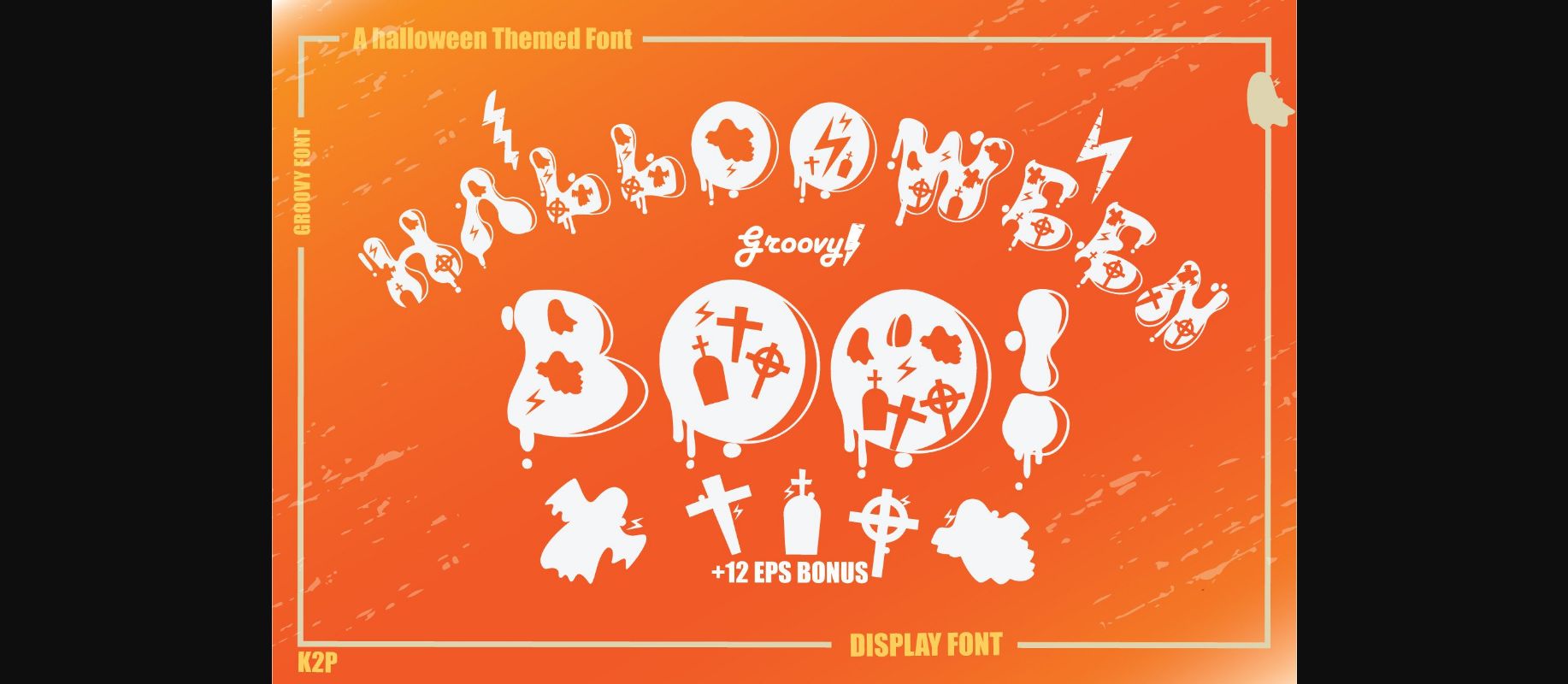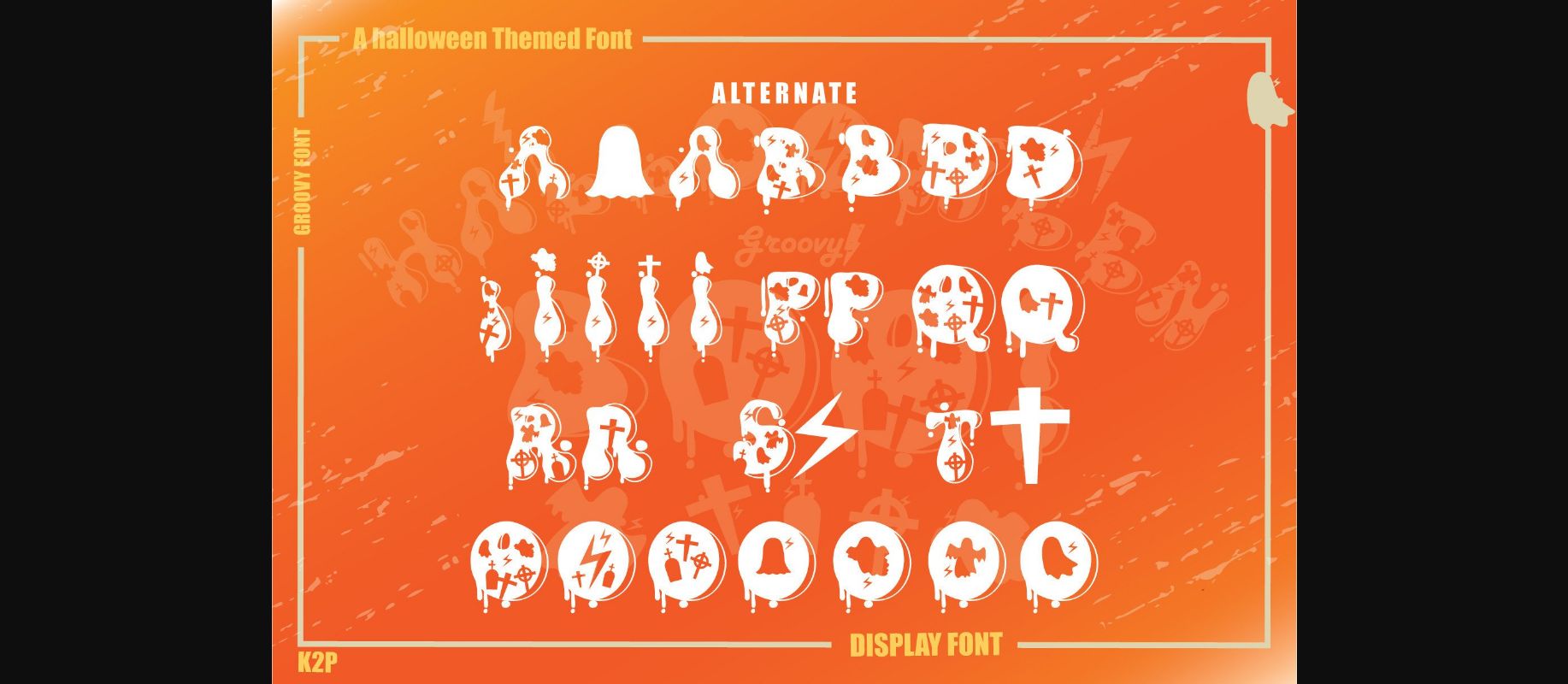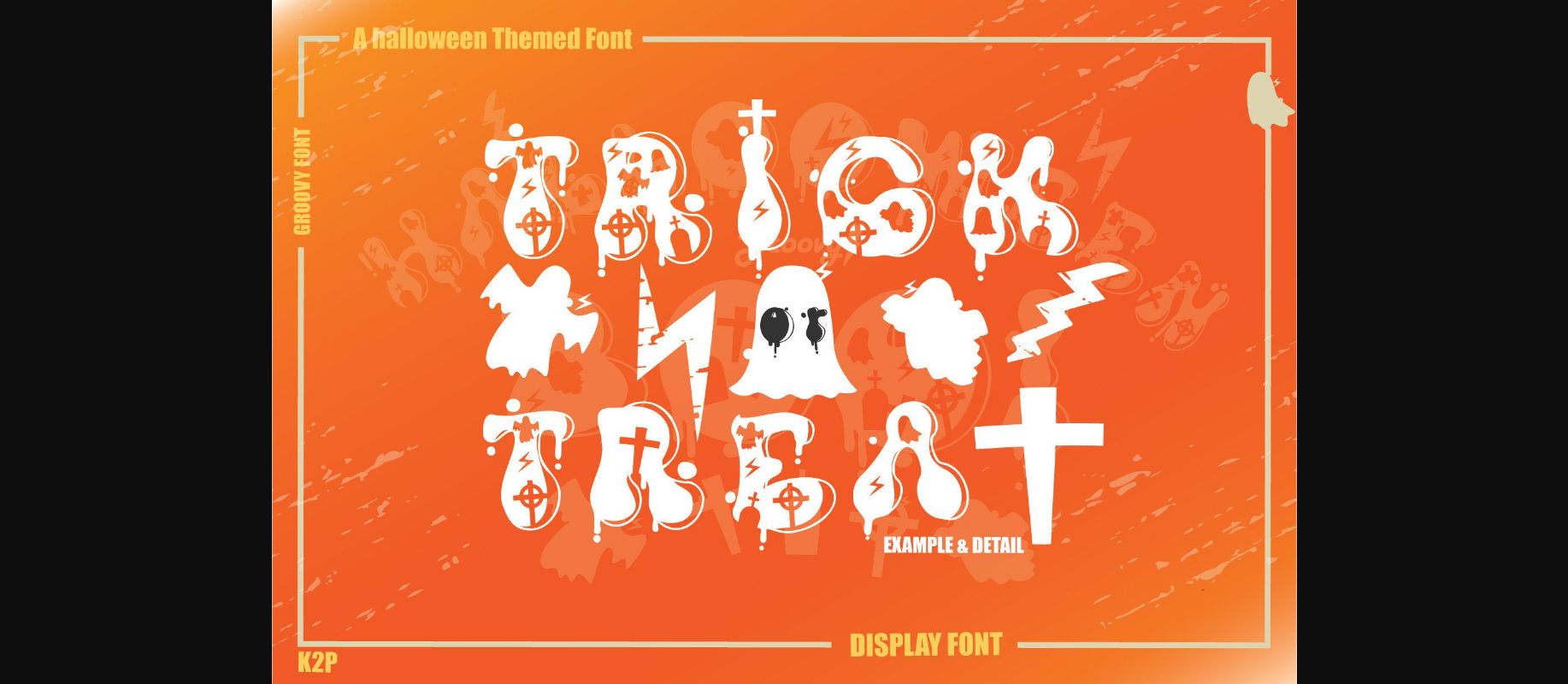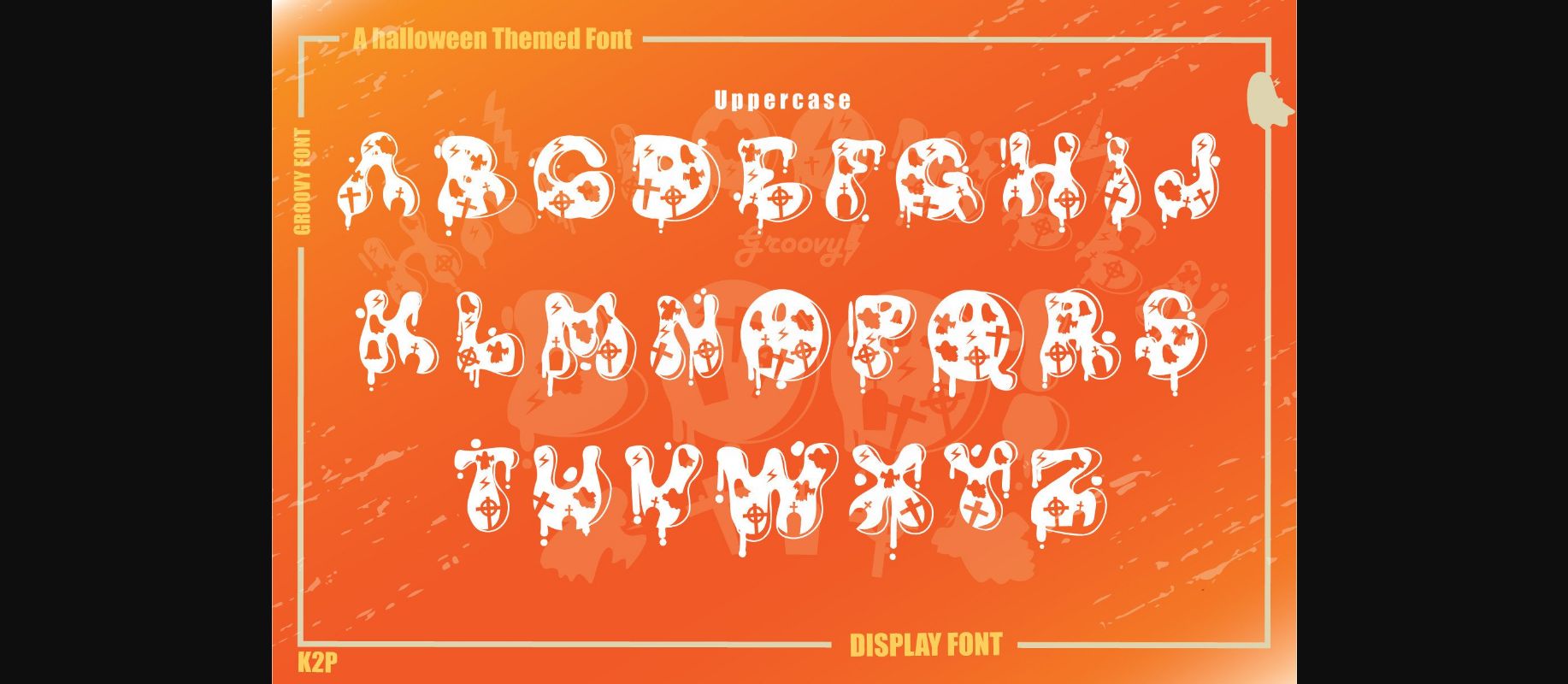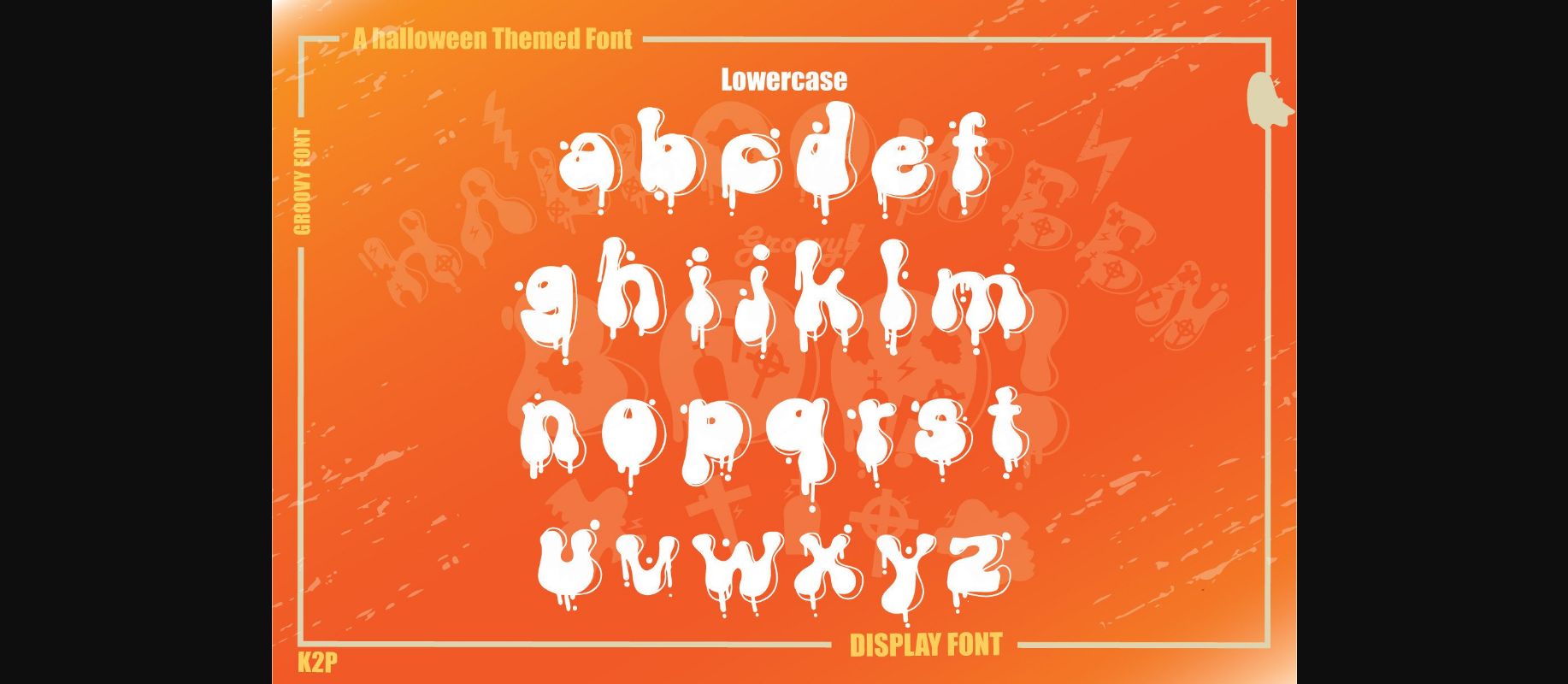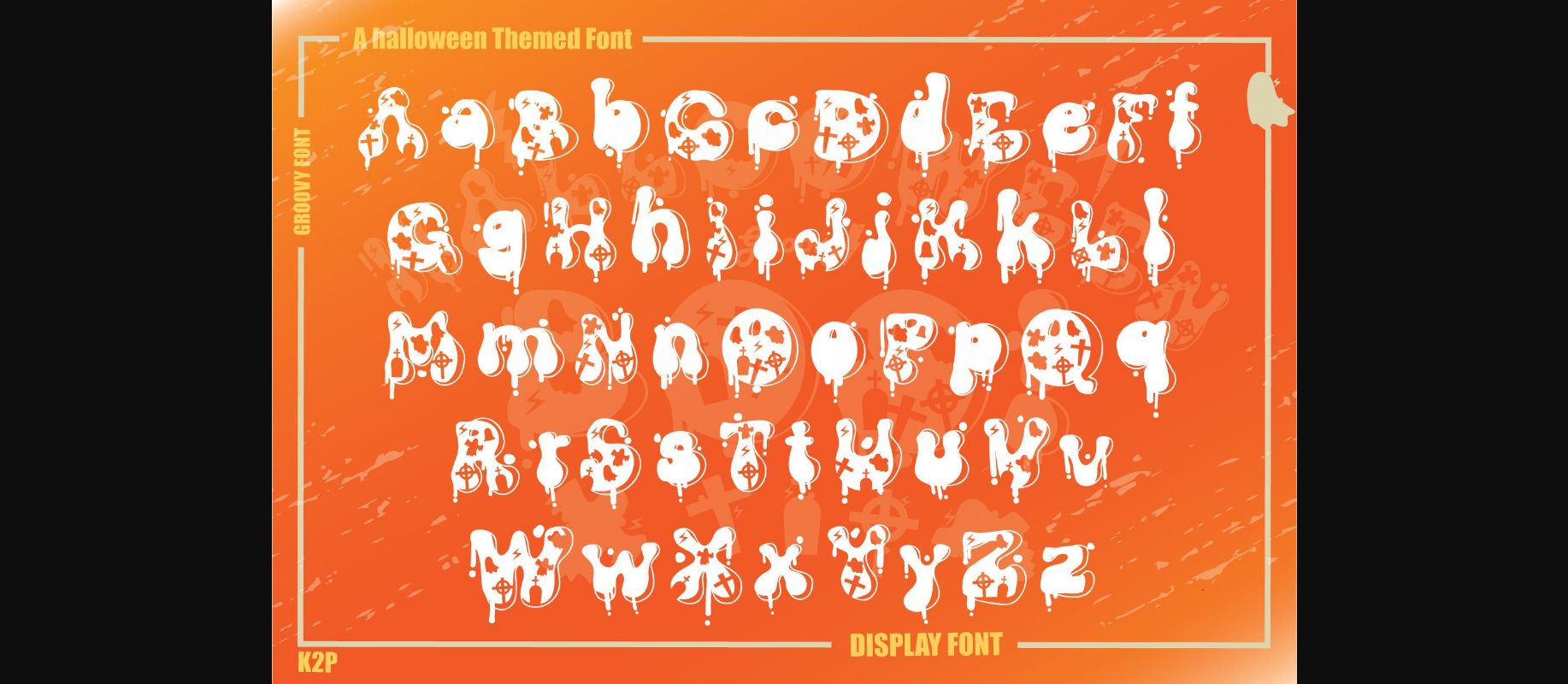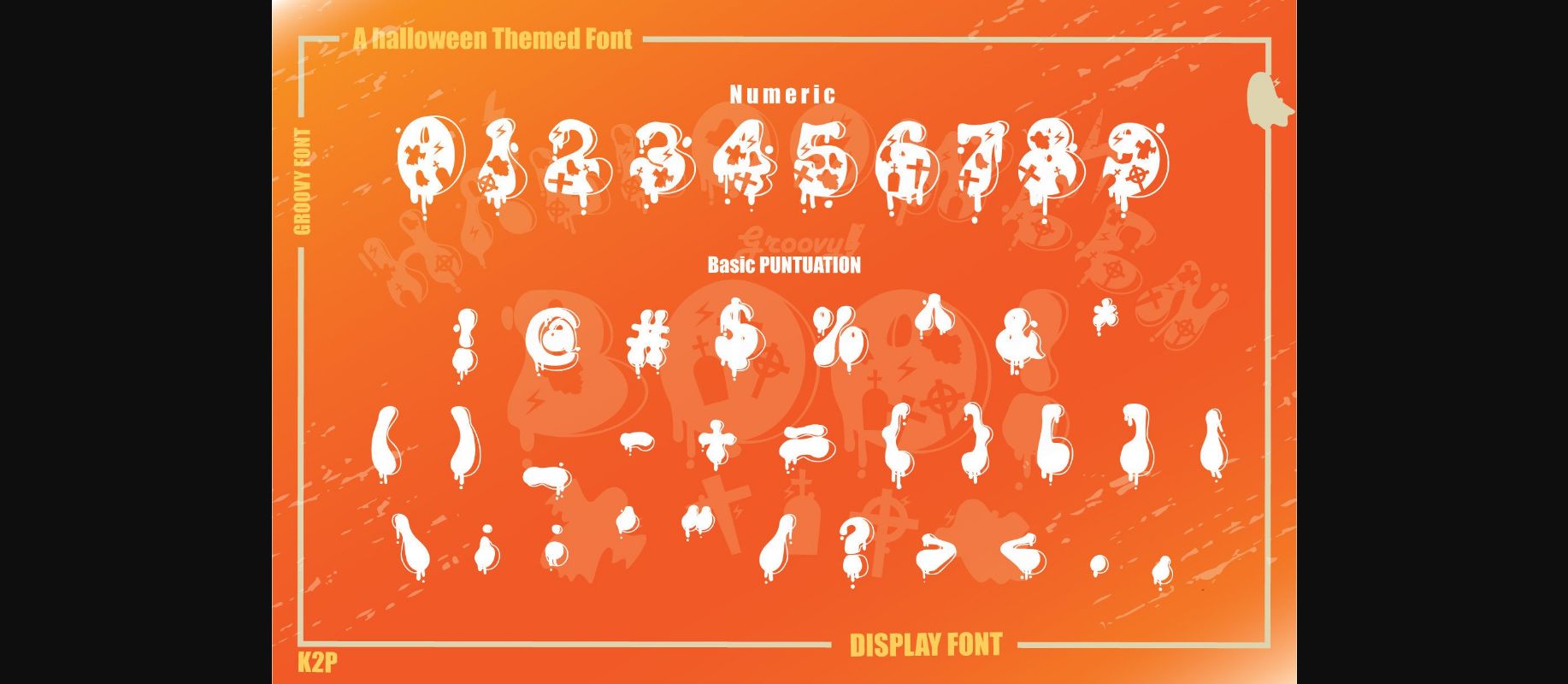
Groovy Halloween Boo Font
About Groovy Halloween Boo Font
Groovy Halloween Boo is a spooky and dramatic decorative font. It is perfectly suitable for any Halloween-related project or crafty idea! This font is PUA encoded which means you can access all glyphs and swashes with ease!